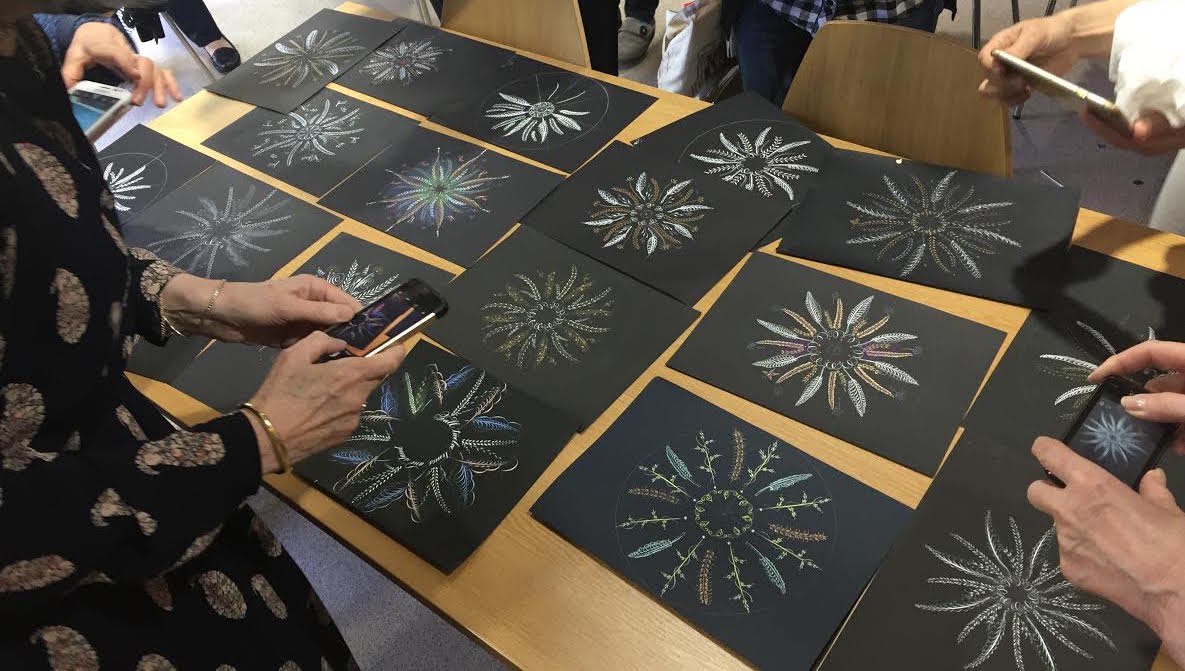
The Graceful Curve workshop with Harvest Crittenden
On a beautiful sunny weekend, 8 – 9 April 2017, surrounded by the delightful gardens of Fulham Palace, SLLA members gathered for a workshop with Harvest Crittenden from Michigan USA.  Harvest, an internationally renowned Master Penman, is feted for her study of the Spencerian style of writing and decoration and this was the focus of the weekend course.
curvesStudents had received a detailed booklet prior to the course but it was only when Harvest began to explain and demonstrate that the whole thing fell into place. All the designs are curves based on an oval shape, with the elegant lines and graceful loops being drawn with a pointed pen, which can be used to create beautiful designs and letters, as shown in the photos. Students enjoyed an unforgettable weekend, being instructed by a very special artist.